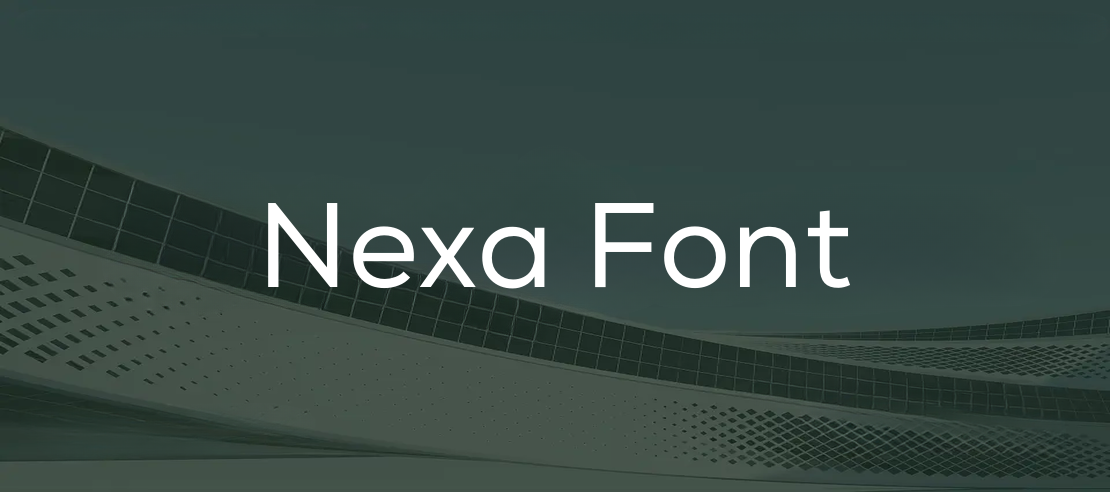
Nexa Font has a clean and elegant texture appearance and this font is the category of Sans-Serif font family. This font style has a professional texture appearance that provides a professional vibe to your designs. This typeface is widely used in many offices for official documents and certificate creation due to its professional appearance.
This typeface is used for headings in publications, presentations, and web pages because of its bold design. This typeface is among the most used font in Adobe.
Creator of Nexa Font
This clean and elegant texture style is designed by Svet Simov. He was a qualified typography designer that has also created many amazing typefaces.
This font texture is constructed with one of the large families in Sans-Serif. Each style of this family is comprised of capital letters, small letters, glyphs, punctuations, numbers, symbols, special characters, and many language support.
View of Nexa Font
| Name | Nexa Font |
| Designer | Svet Simov |
It can support up to 63 languages.
What type of font is Nexa font?
It is a type of Sans-Serif Font Family. This amazing font style is designed by Svet Simov.
What font is closest to Nexa Font?
Some of the typographies are strikingly comparable to the texture of this font. However, Pt Sans Font is really quite similar to this font. So, as an alternative to the Raleway font style, feel free to use this typeface.